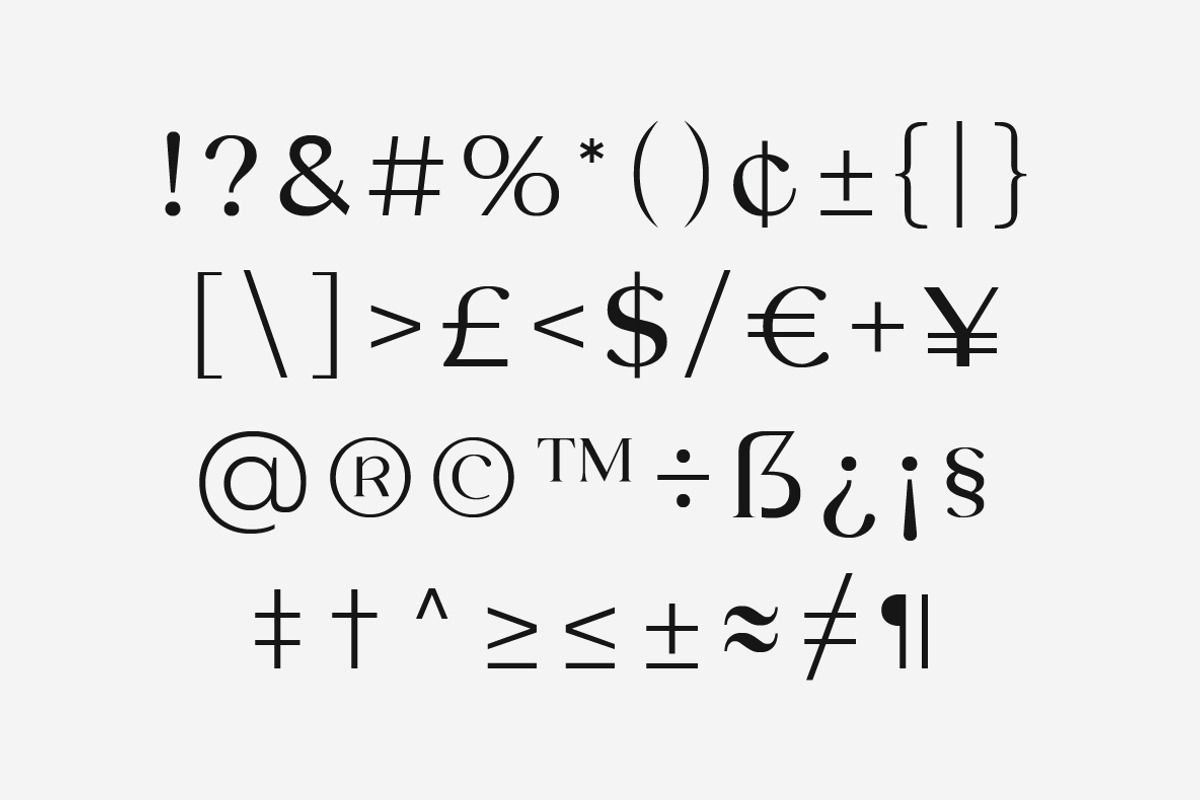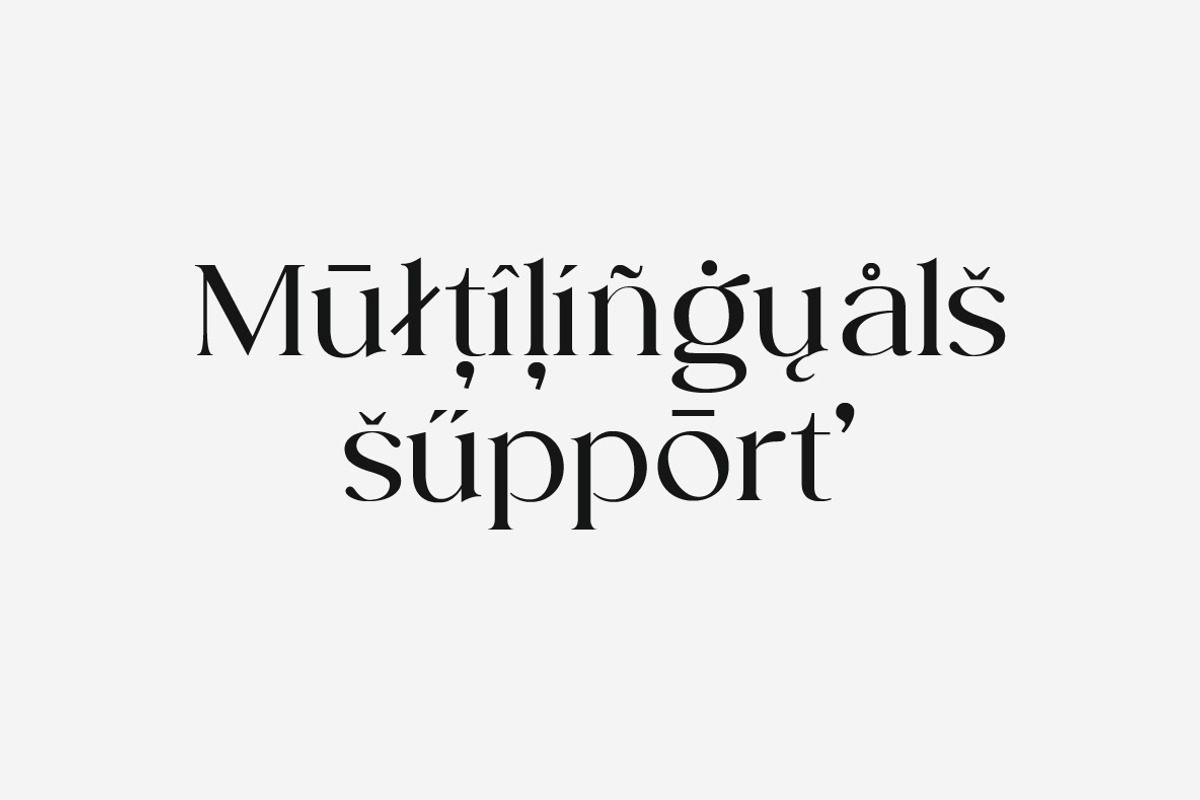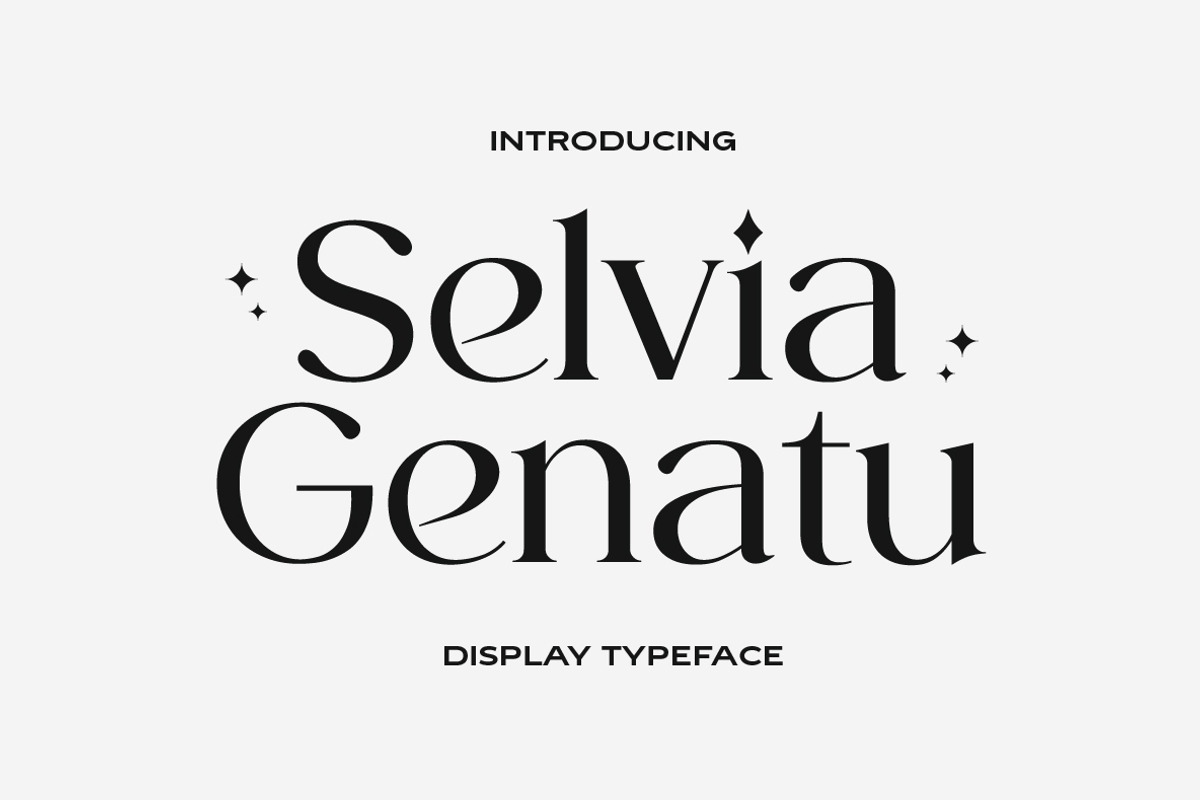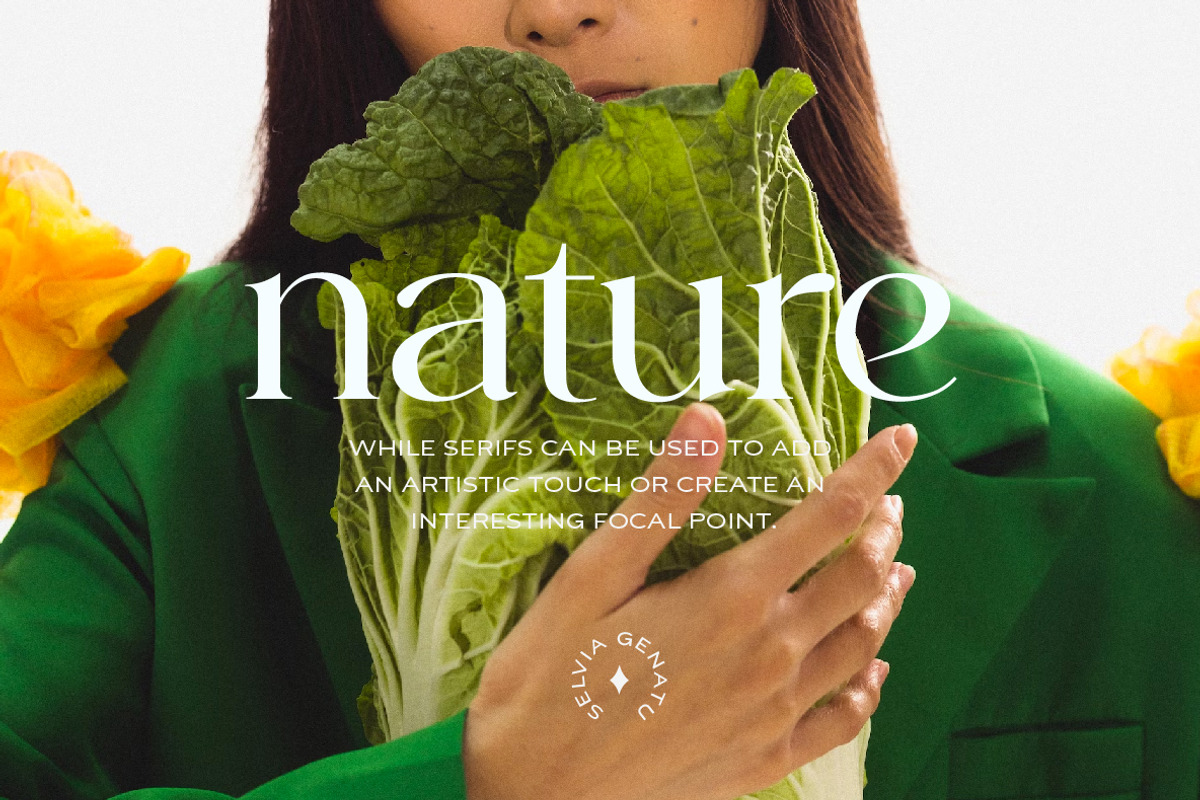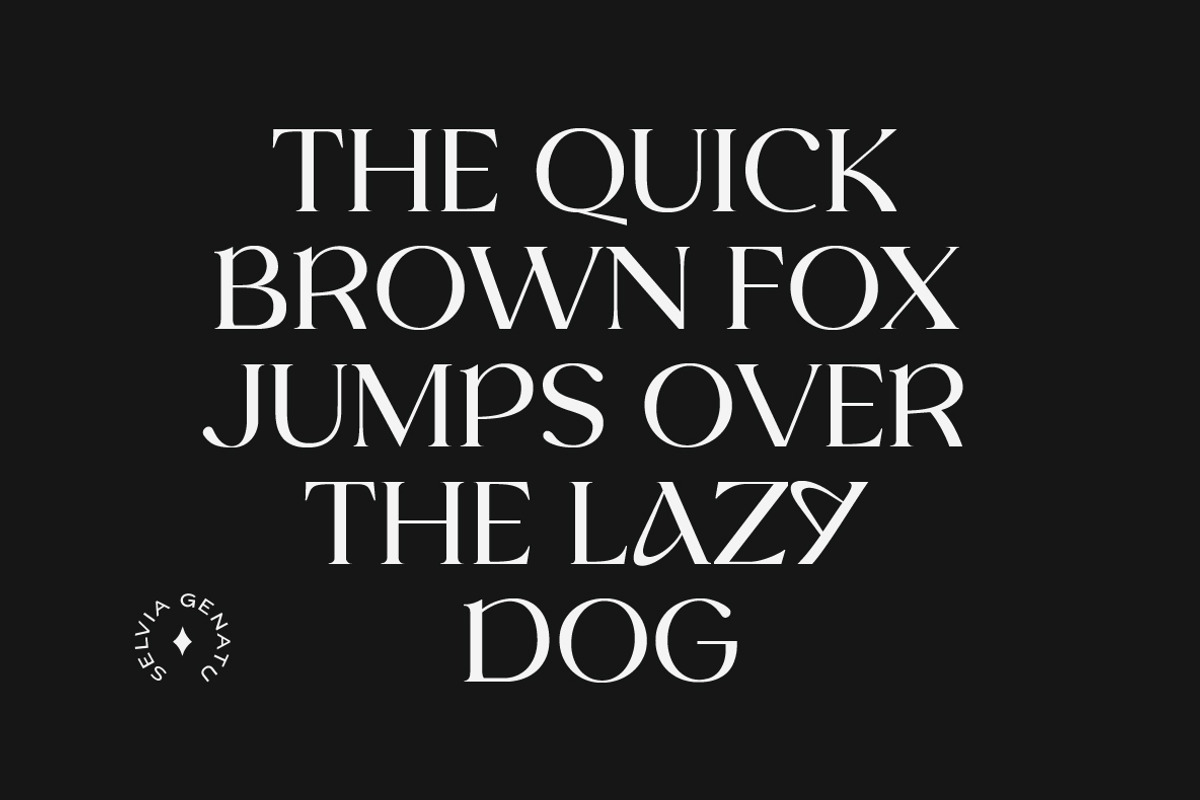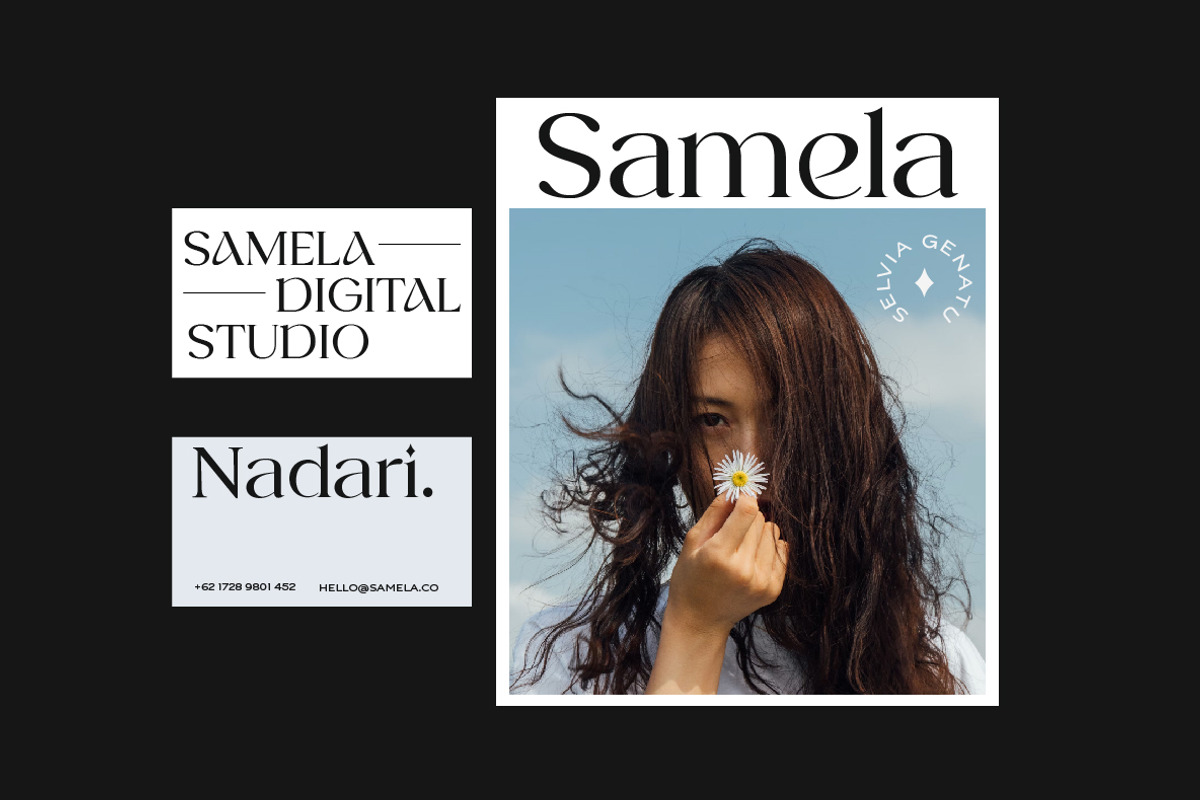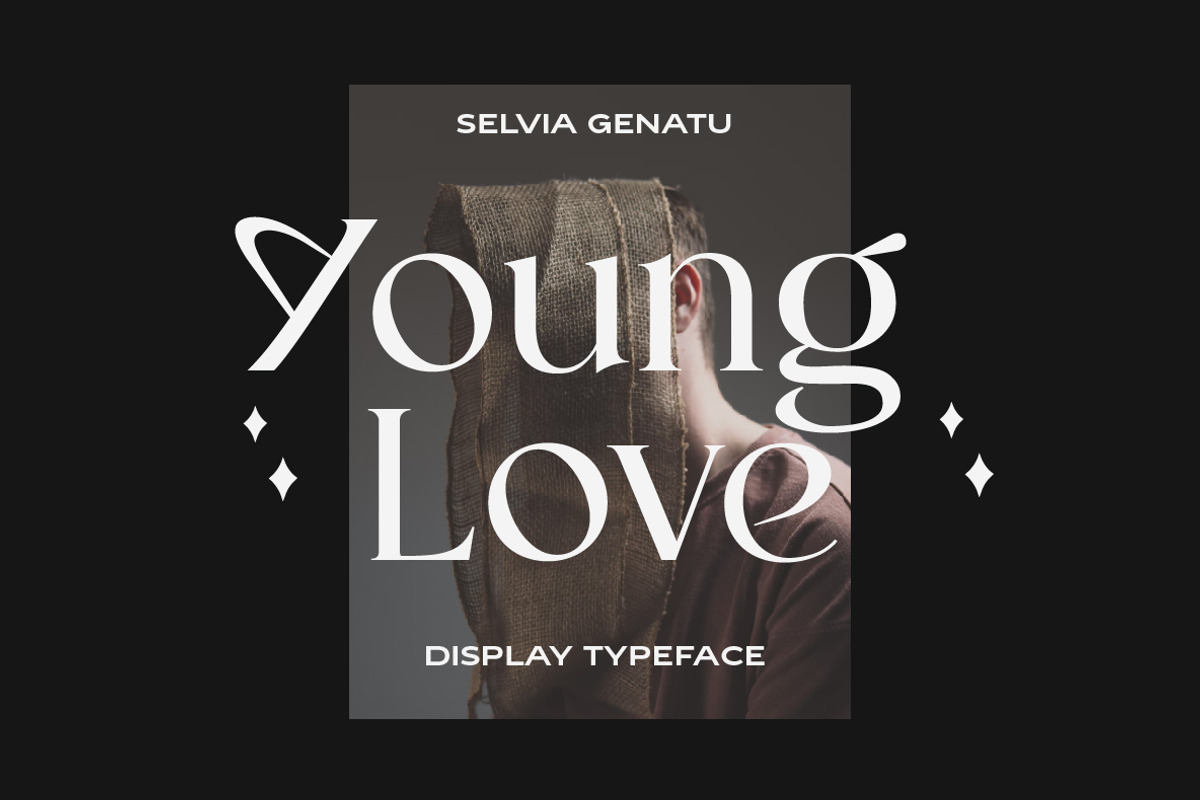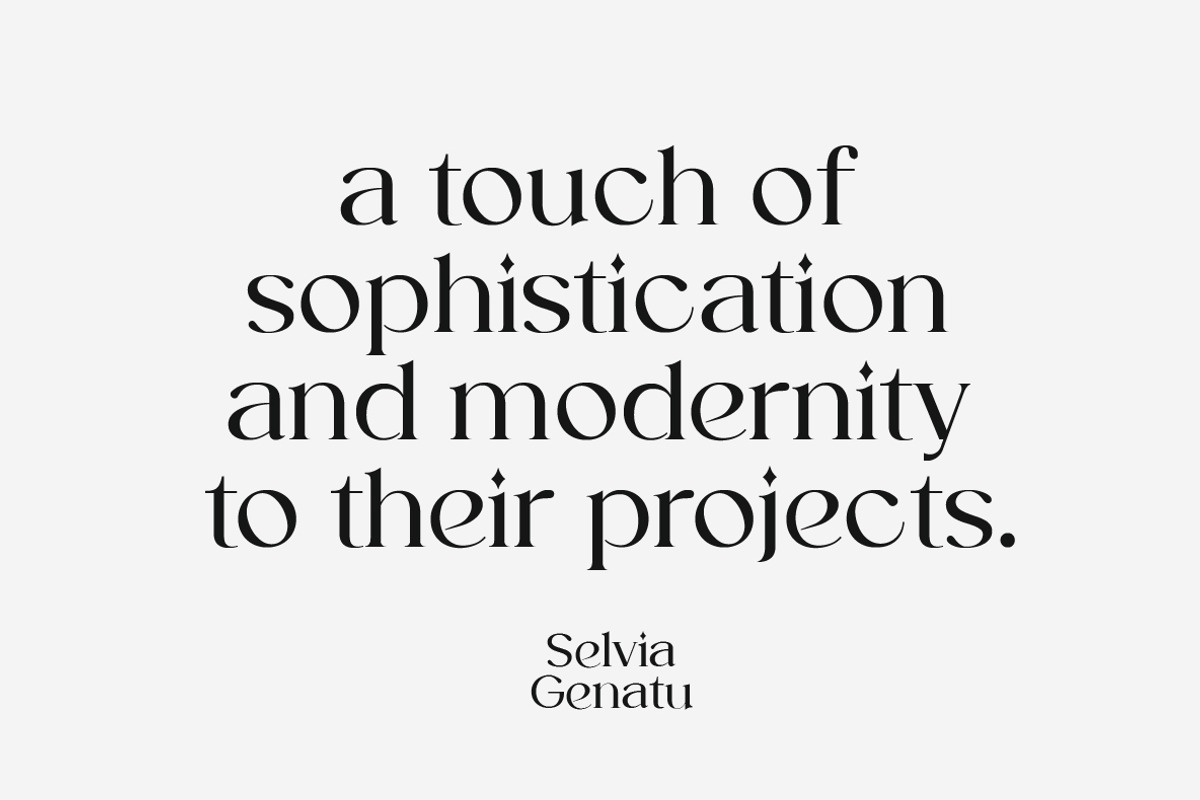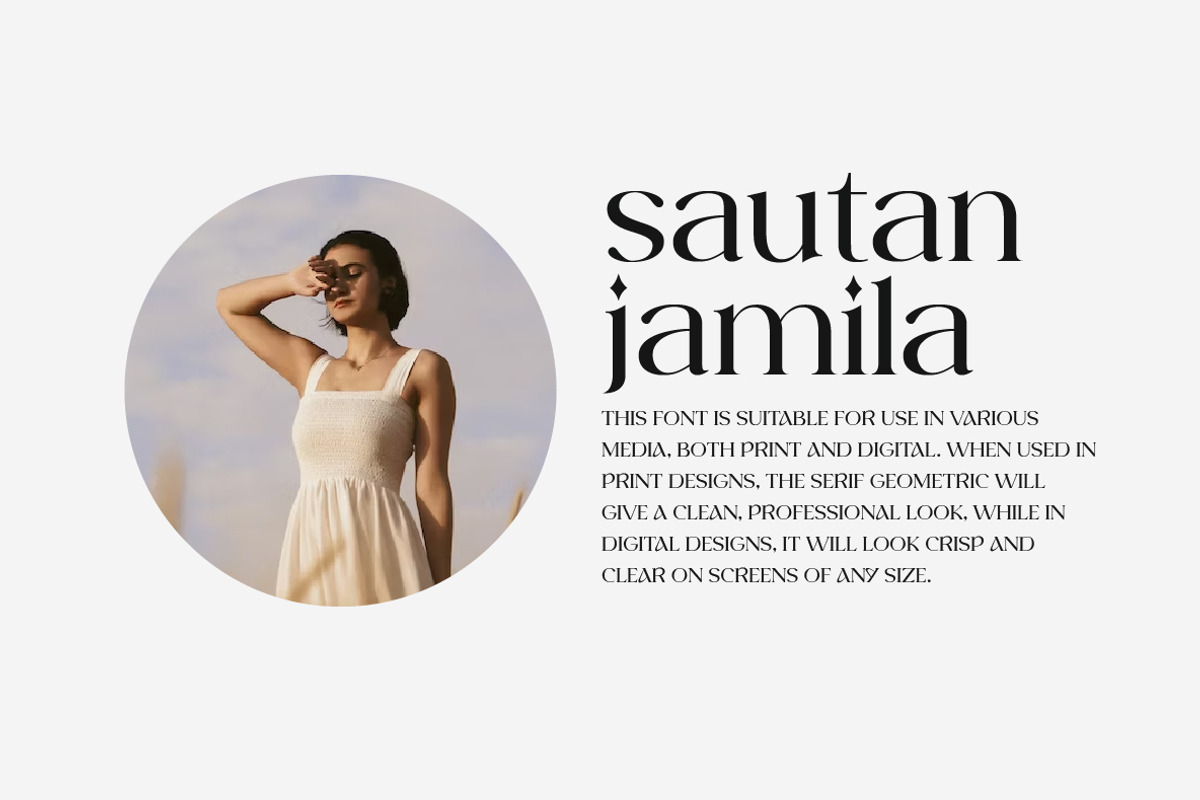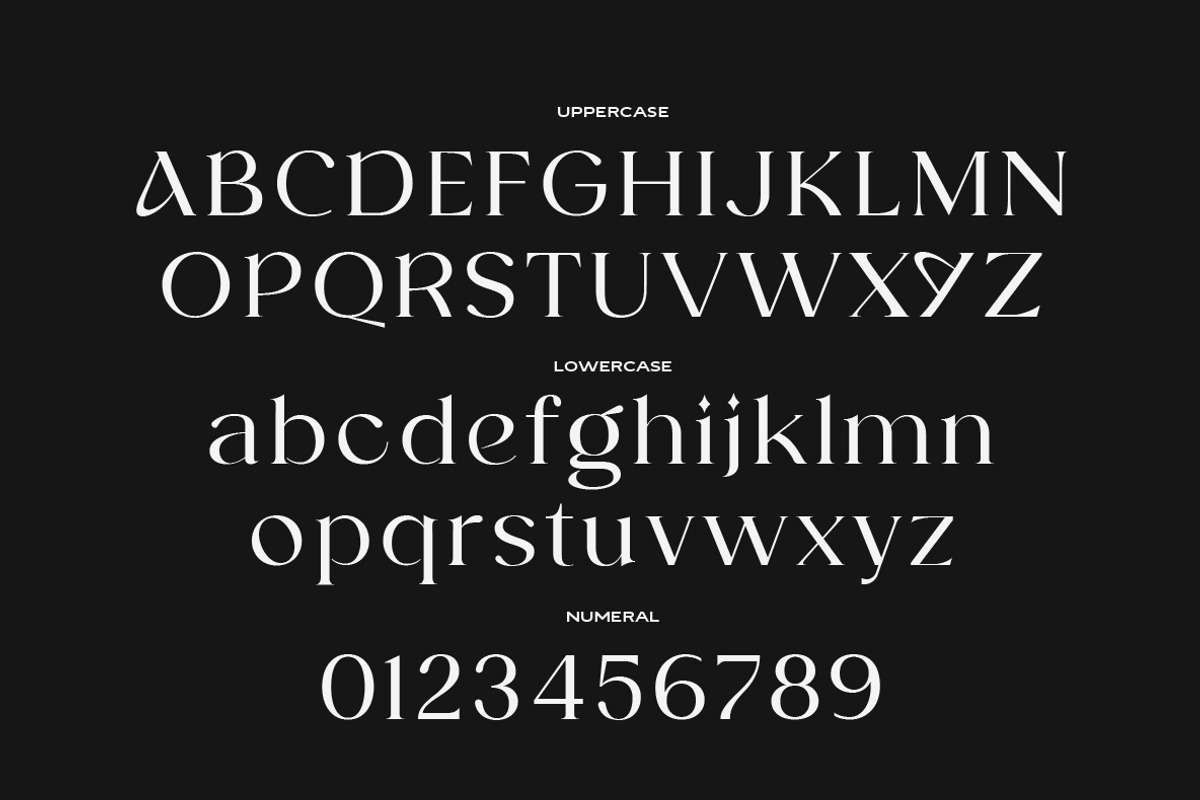
Selvia Genatu Fonts
Selvia Genatu is an elegant serif font that combines classic charm with modern flexibility. With its smooth curves, this font creates stunning visual harmony. Perfect for a variety of projects, from wedding invitations to corporate designs. Thoughtful letter proportions ensure optimal readability at any size.
Selvia Genatu is not just a font, it's an impressive statement of art. With its unique capabilities, it elevates the appeal of every design with a versatile touch of elegance.